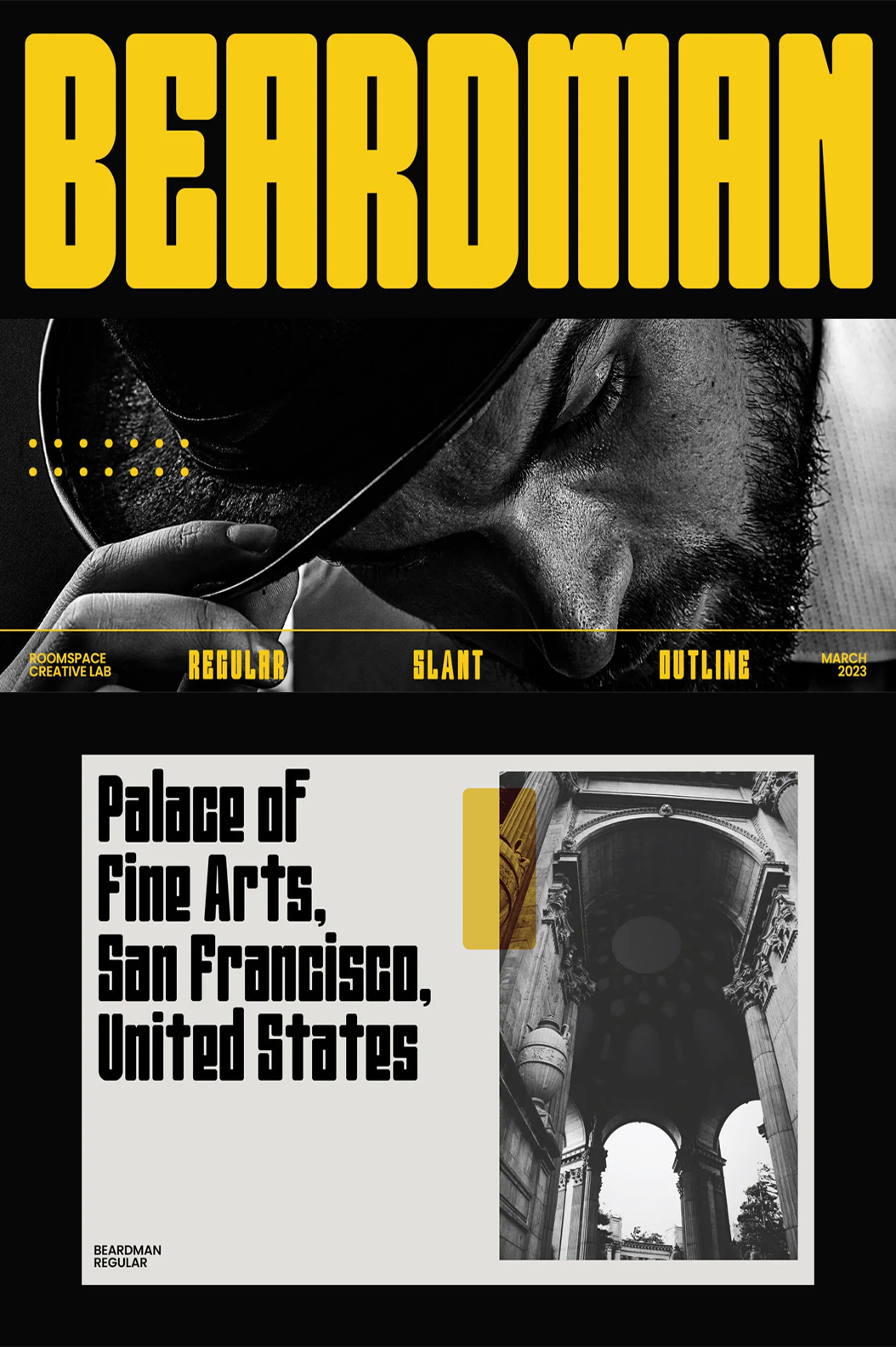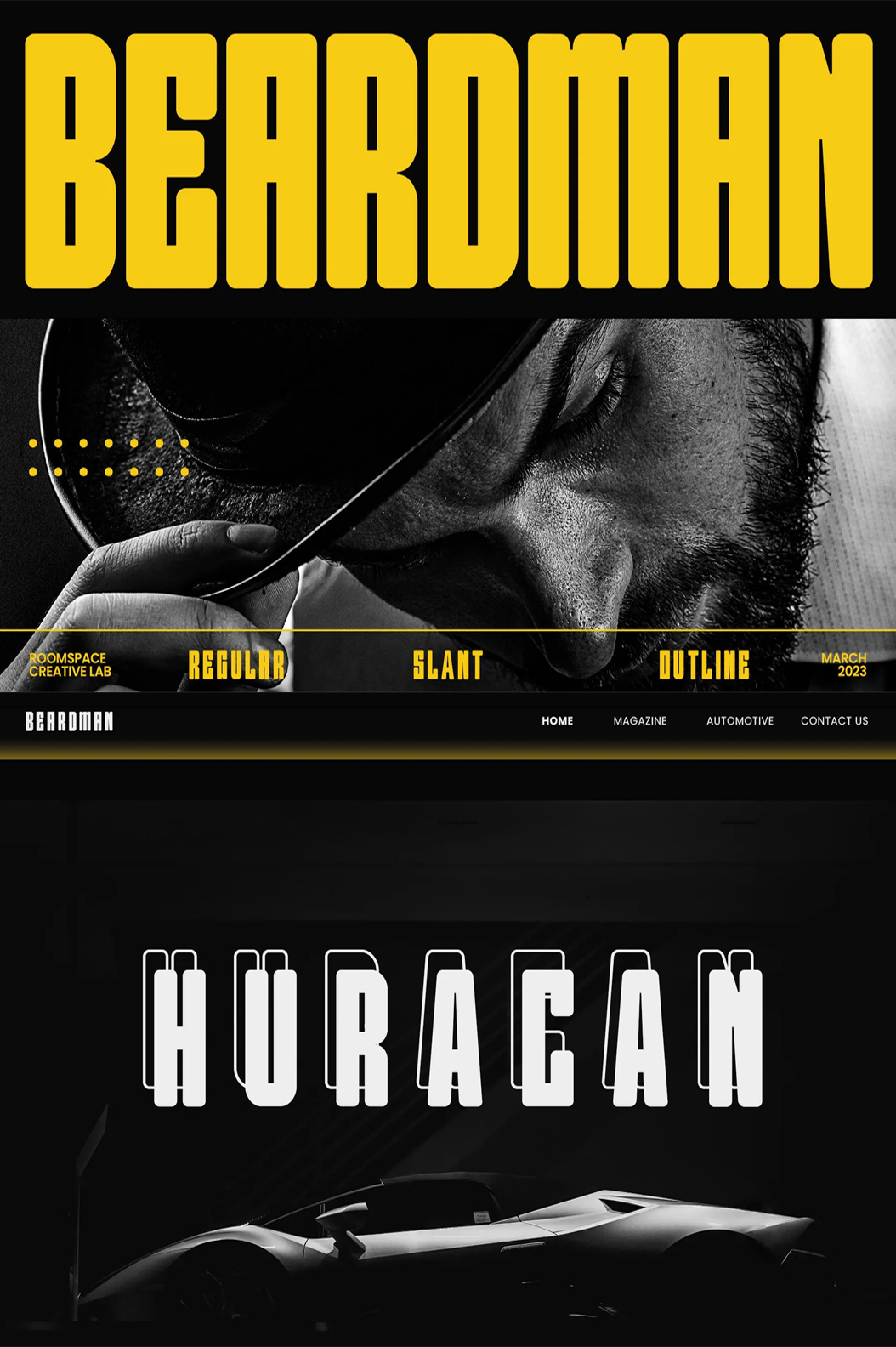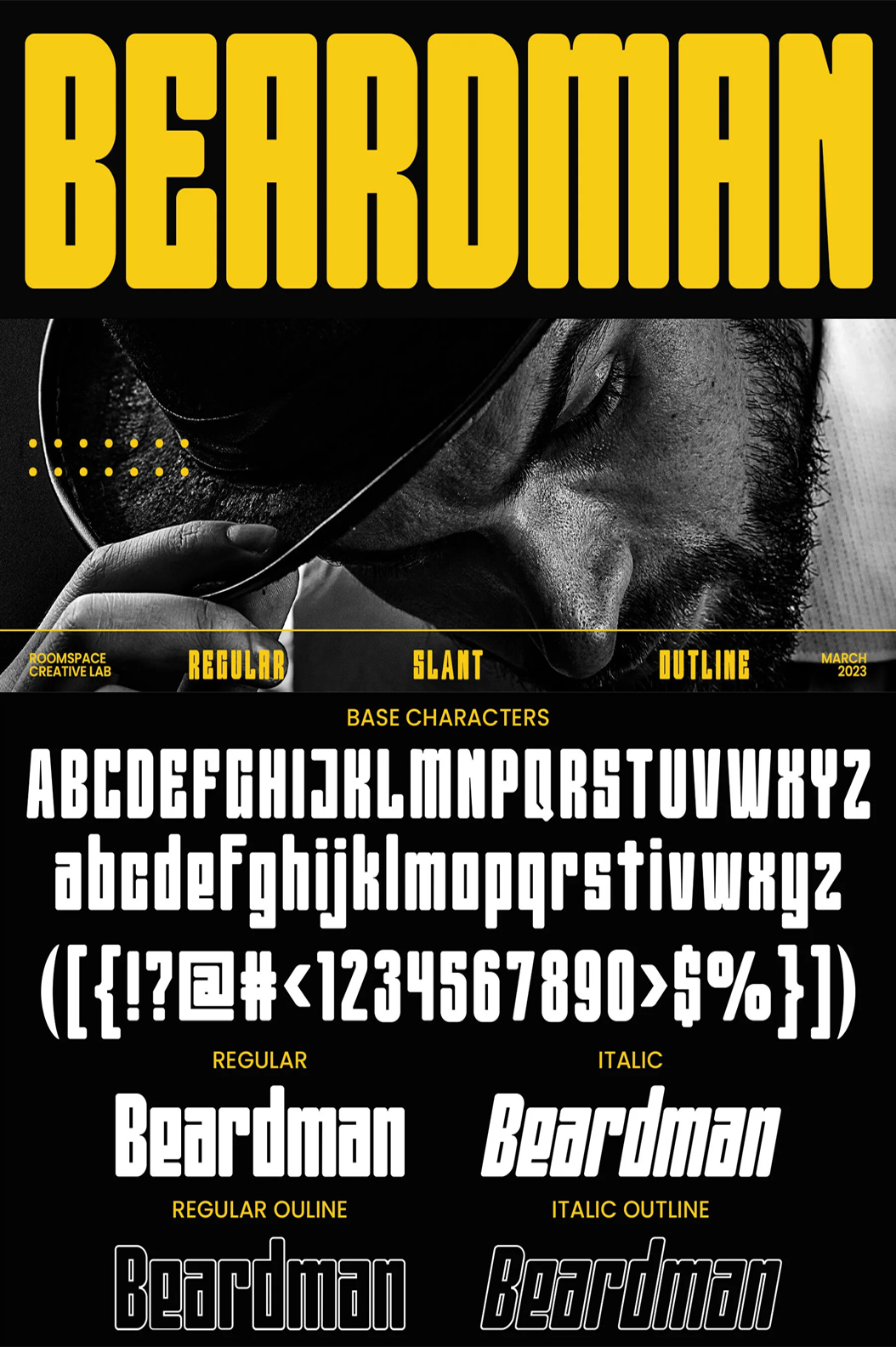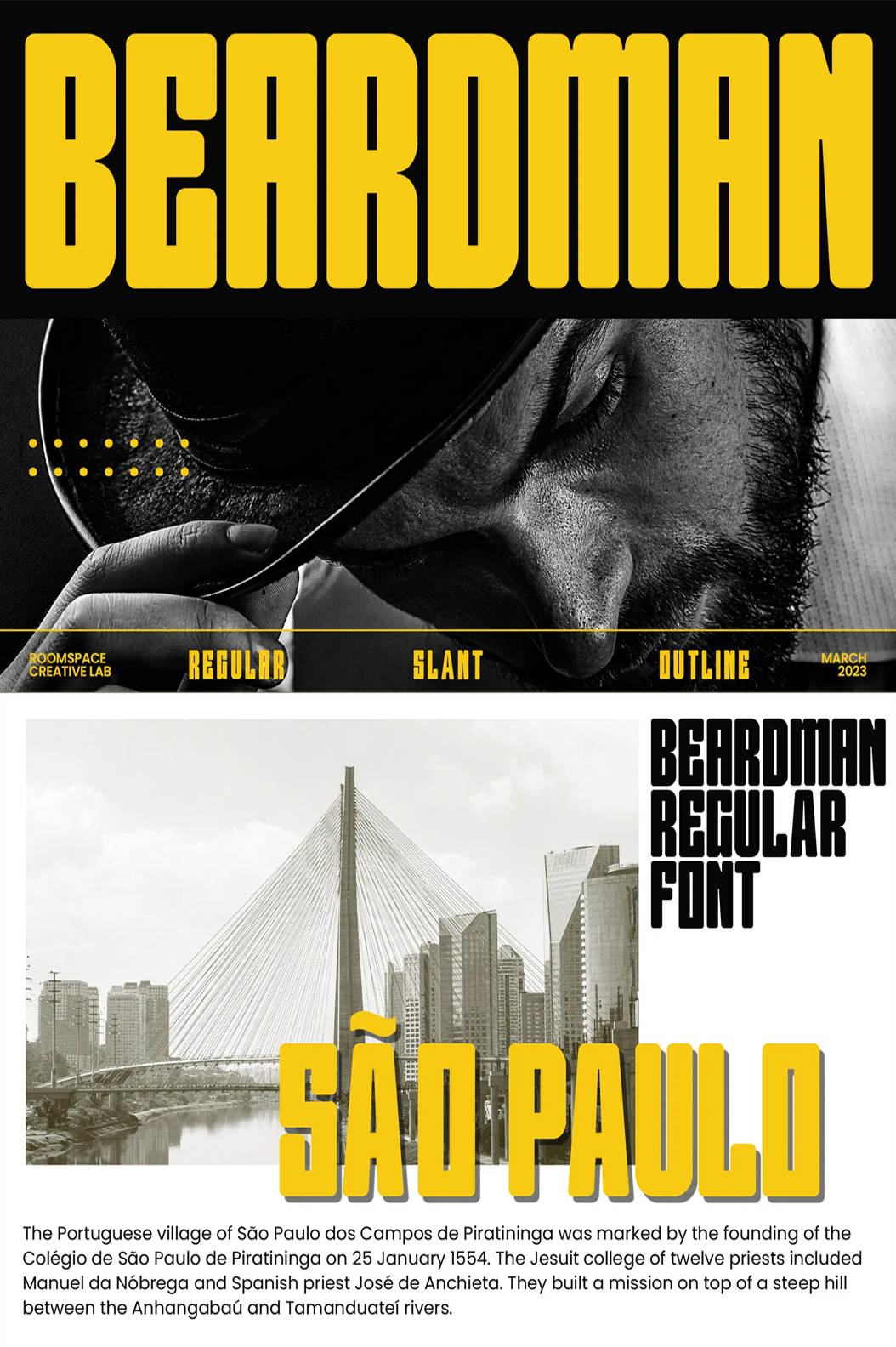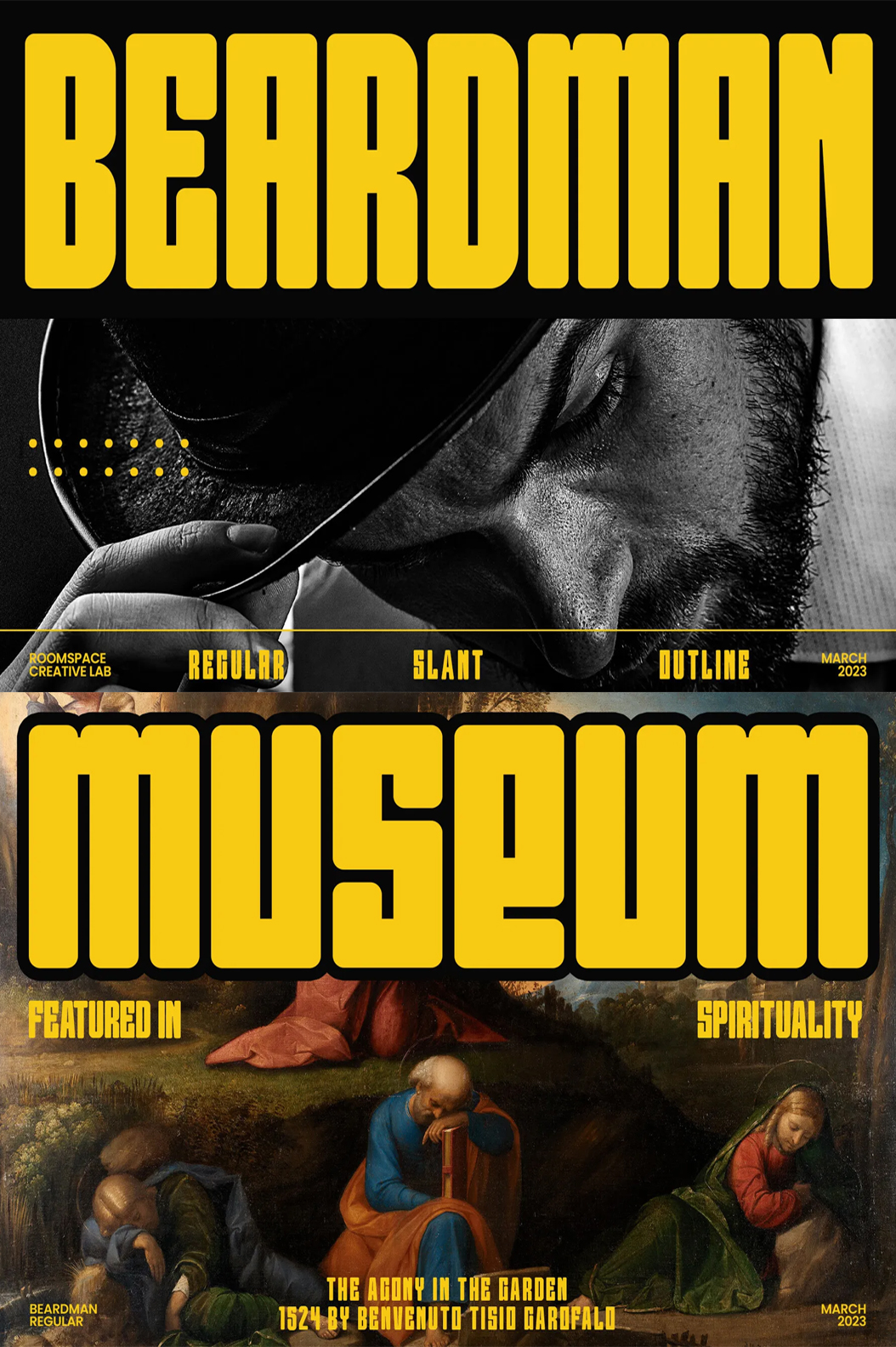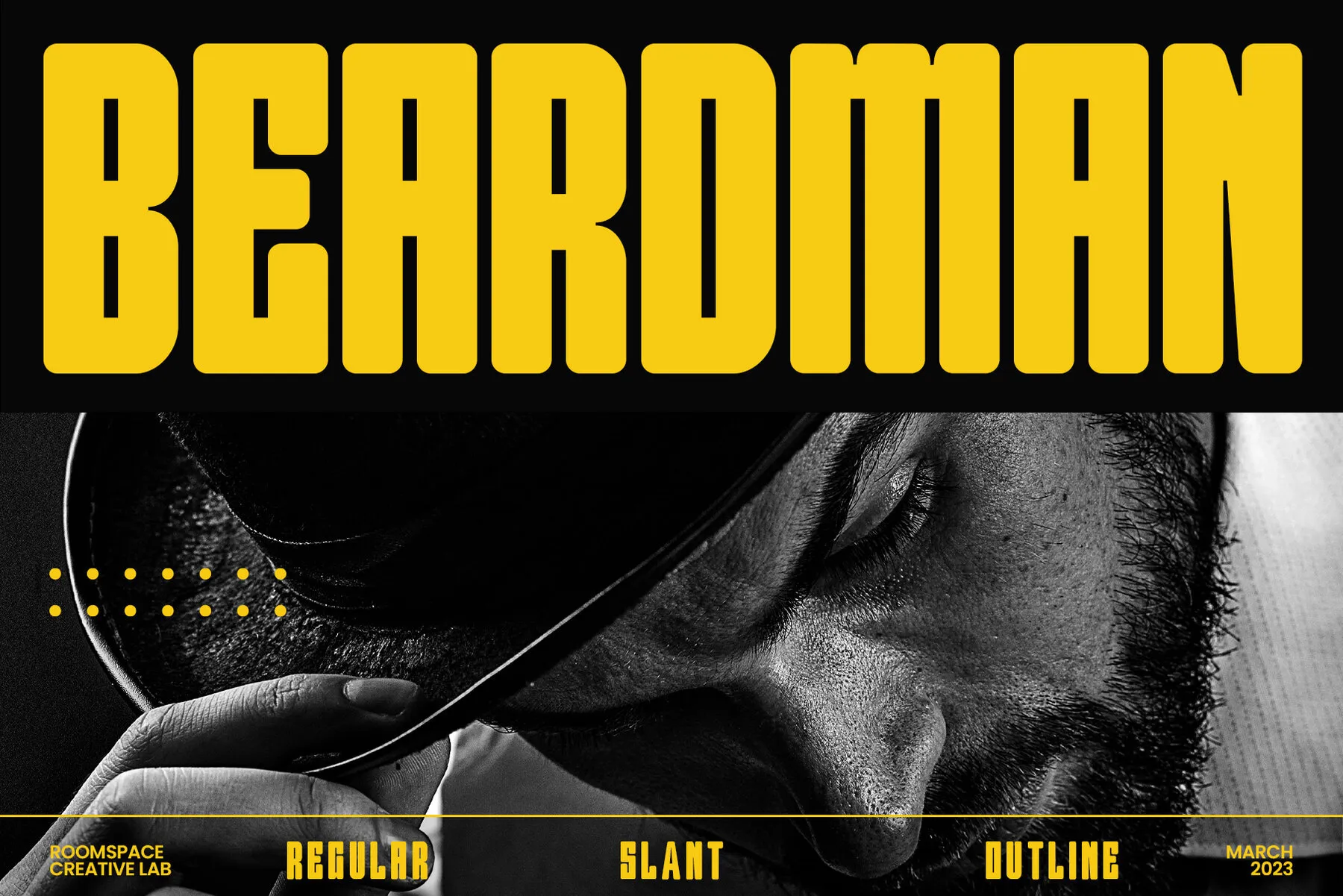
Beardman Font
Beardman is a condensed sans-serif font designed specifically for bold and powerful headlines and titles. With four variants available: regular, italic, regular outline, and italic outline, this font allows you to express yourself with a style that suits your design project.